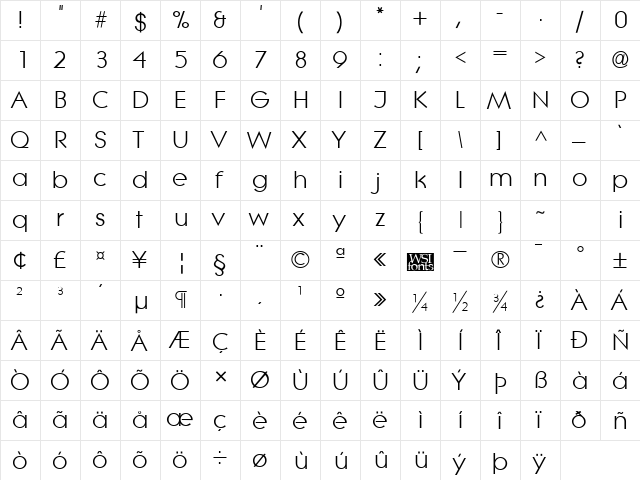
Lithe Regular
Design Context for Lithe Typeface
Lithe offers clean, dependable letterforms without strong stylistic allegiance, making it a practical choice for designers who need flexibility.